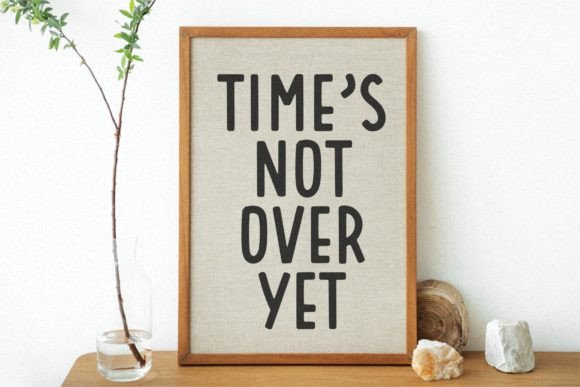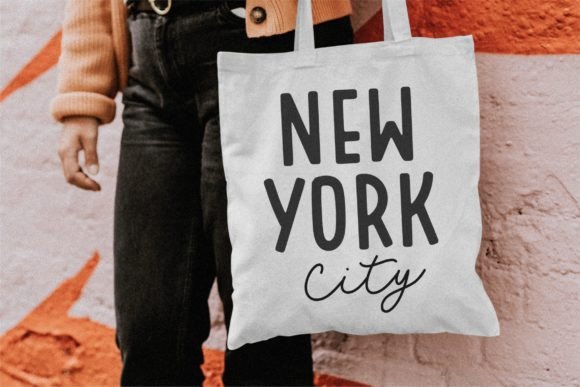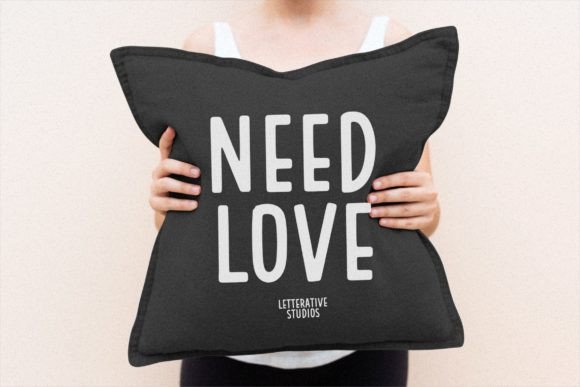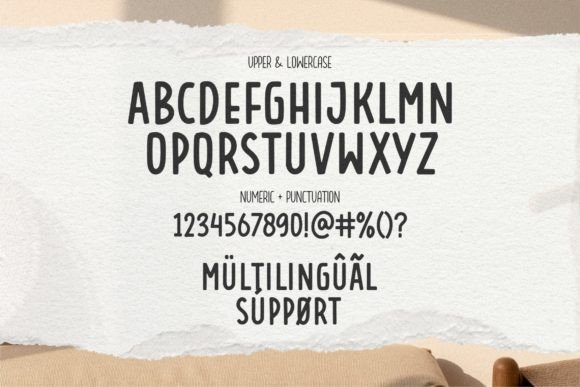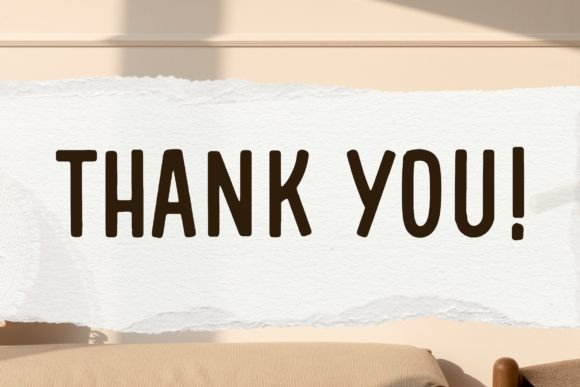
Introducing Breaked: A Charming Fat Hand-brushed Sans Serif Font
Are you tired of using the same old fonts for your design projects? Look no further! Breaked, a fat hand-brushed sans serif font, is here to add a touch of uniqueness and personality to your creations. With its charming and warm character, Breaked is perfect for designers and crafters looking to give their projects a distinctive feel.
What is Breaked Font?
Breaked is a one-of-a-kind, hand-brushed sans serif font that features only uppercase letters. Its bold and chunky design makes it perfect for creating eye-catching logos, greeting cards, posters, packaging, and more. The font’s unique, hand-brushed texture gives it a warm and organic feel that’s sure to make your designs stand out.
Key Features of Breaked Font
- Hand-brushed texture: Breaked’s hand-brushed texture gives it a unique, organic feel that’s perfect for creating designs that look handcrafted.
- Fat sans serif design: The font’s bold and chunky design makes it perfect for creating eye-catching headlines and titles.
- Uppercase letters only: Breaked features only uppercase letters, making it perfect for creating bold and attention-grabbing designs.
- Charming and warm character: The font’s charming and warm character makes it perfect for creating designs that require a personal touch.
Use Cases for Breaked Font
Breaked is a versatile font that can be used for a wide range of design projects, including:
- Logo design: Breaked’s bold and chunky design makes it perfect for creating eye-catching logos that stand out.
- Greeting cards: The font’s charming and warm character makes it perfect for creating personalized greeting cards for special occasions.
- Posters: Breaked’s hand-brushed texture and bold design make it perfect for creating eye-catching posters that grab attention.
- Packaging: The font’s unique texture and design make it perfect for creating packaging that stands out on store shelves.
Why Choose Breaked Font?
With so many fonts available, why choose Breaked? Here are just a few reasons why Breaked stands out:
- Unique design: Breaked’s hand-brushed texture and bold design make it a one-of-a-kind font that’s sure to make your designs stand out.
- Easy to read: Despite its bold design, Breaked is easy to read, making it perfect for creating designs that require a clear and concise message.
- Versatile: Breaked can be used for a wide range of design projects, from logos and greeting cards to posters and packaging.
Tips for Using Breaked Font
Here are a few tips for getting the most out of Breaked font:
- Use it sparingly: Breaked’s bold design makes it perfect for creating eye-catching headlines and titles. Use it sparingly to create a clear visual hierarchy.
- Experiment with colors: Breaked’s hand-brushed texture looks great in a variety of colors. Experiment with different colors to find the perfect look for your design.
- Pair it with other fonts: Breaked pairs well with a variety of fonts. Experiment with different pairings to find the perfect combination for your design.
Breaked is a charming and unique font that’s perfect for designers and crafters looking to add a touch of personality to their designs. With its hand-brushed texture, bold design, and warm character, Breaked is sure to make your designs stand out. Whether you’re creating logos, greeting cards, posters, or packaging, Breaked is a versatile font that’s sure to become a favorite in your design arsenal.